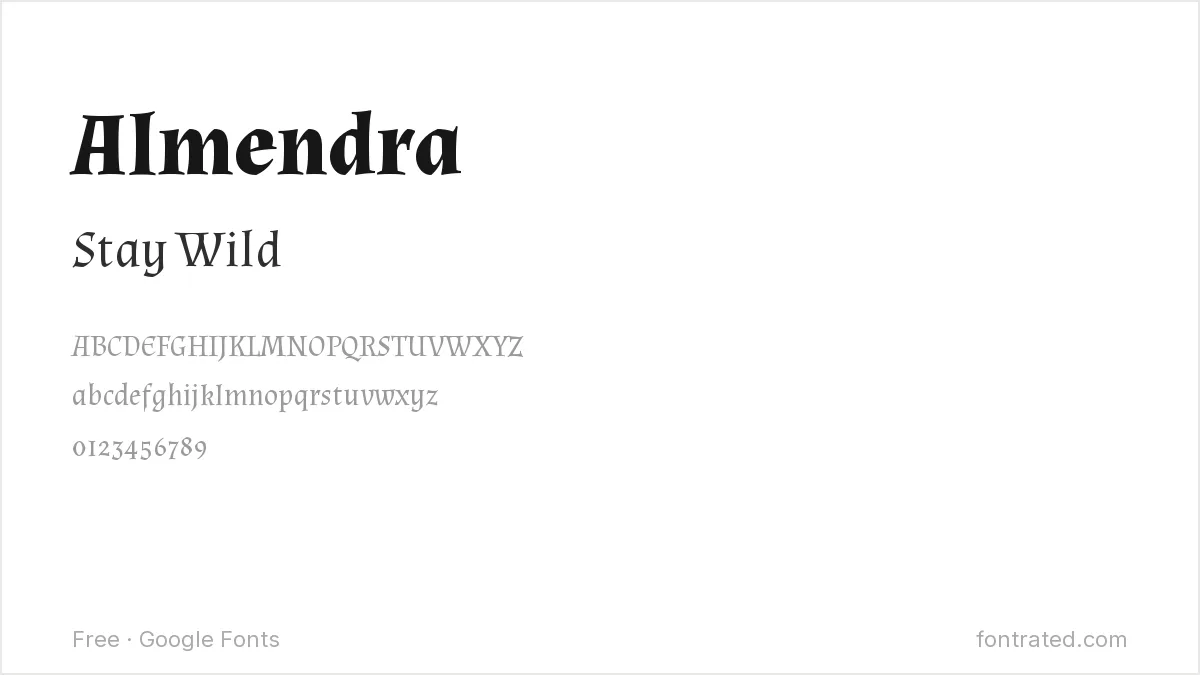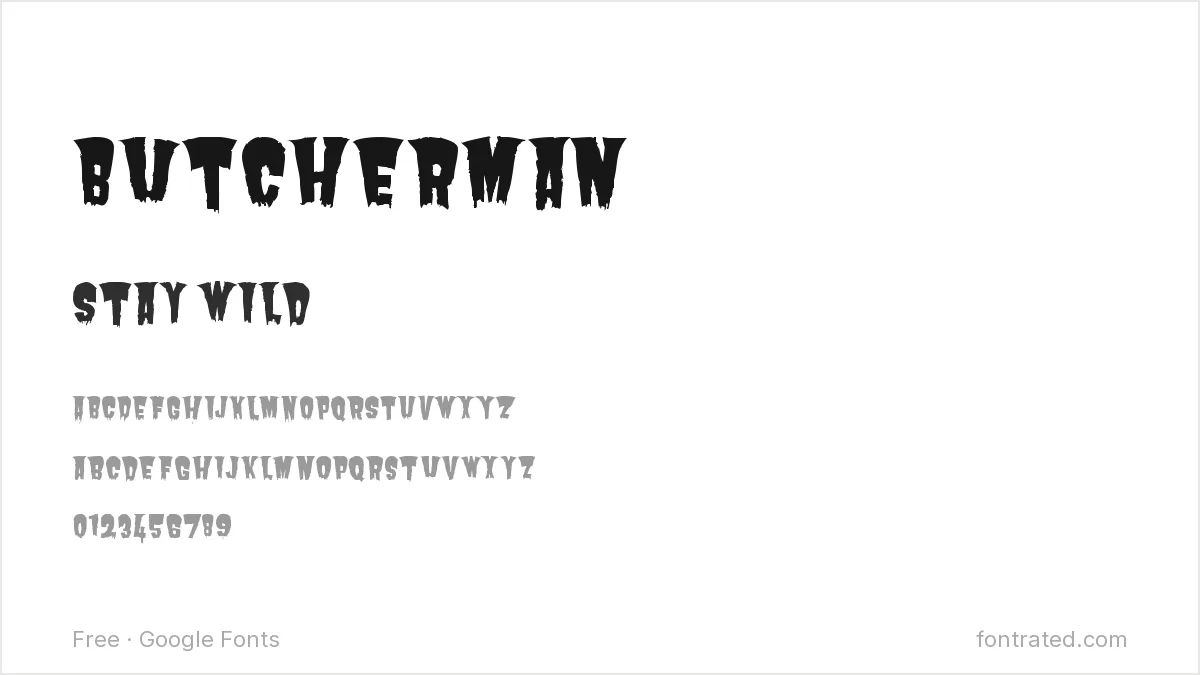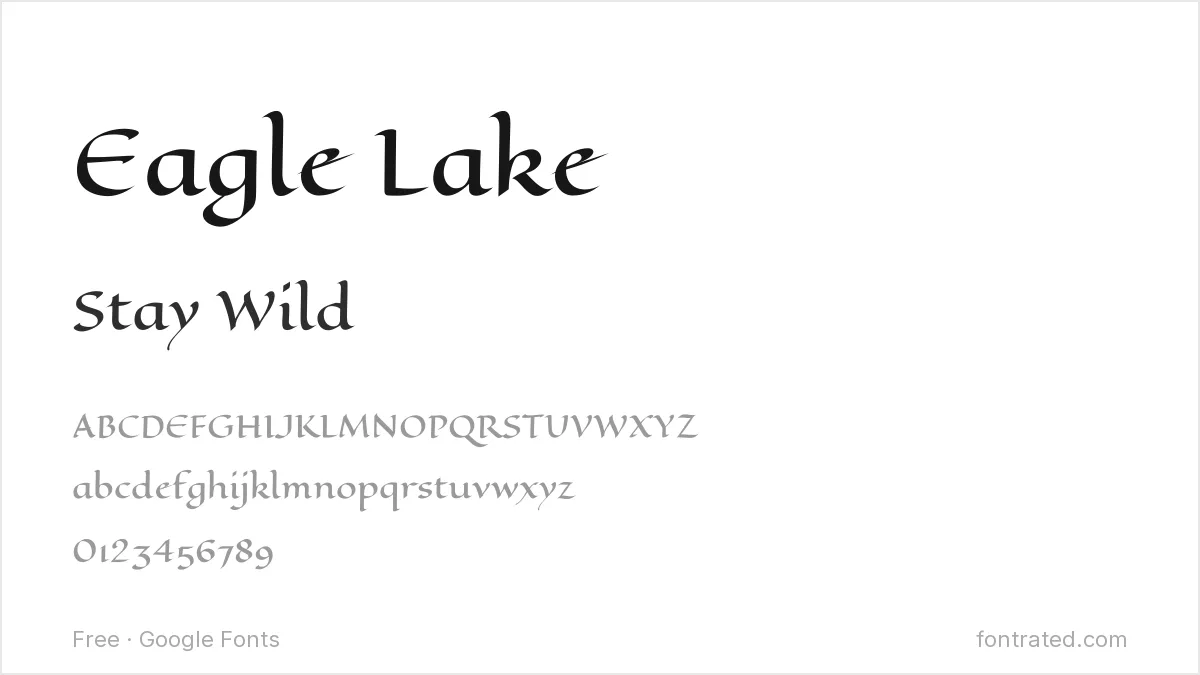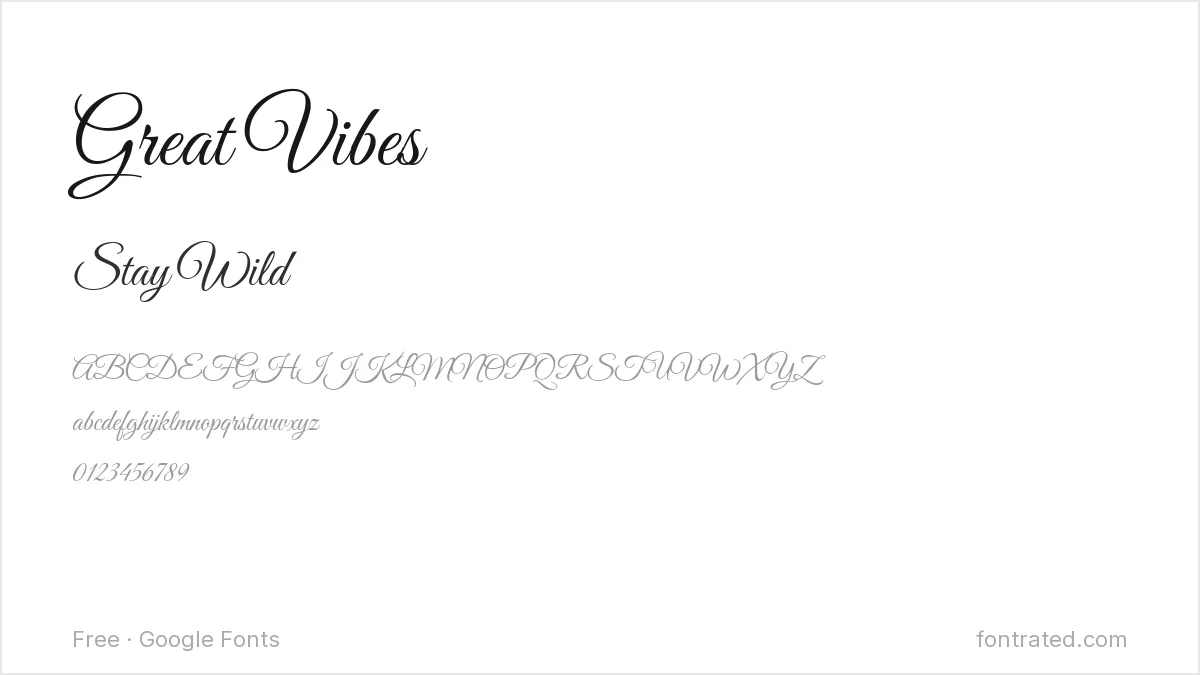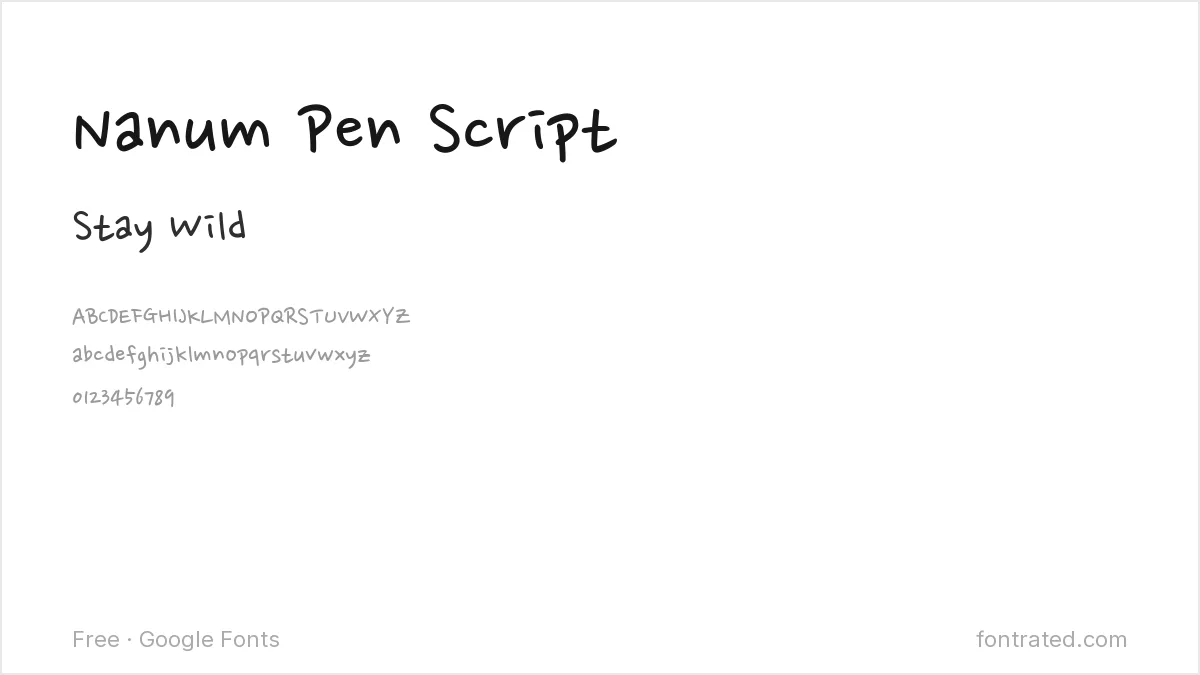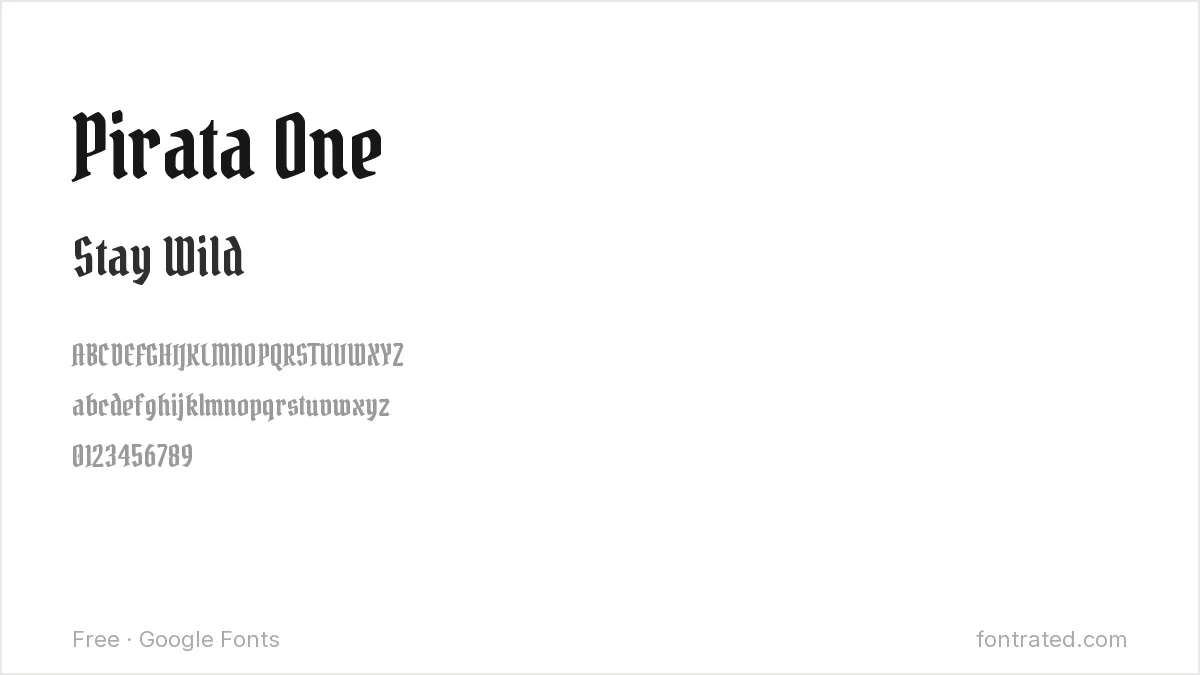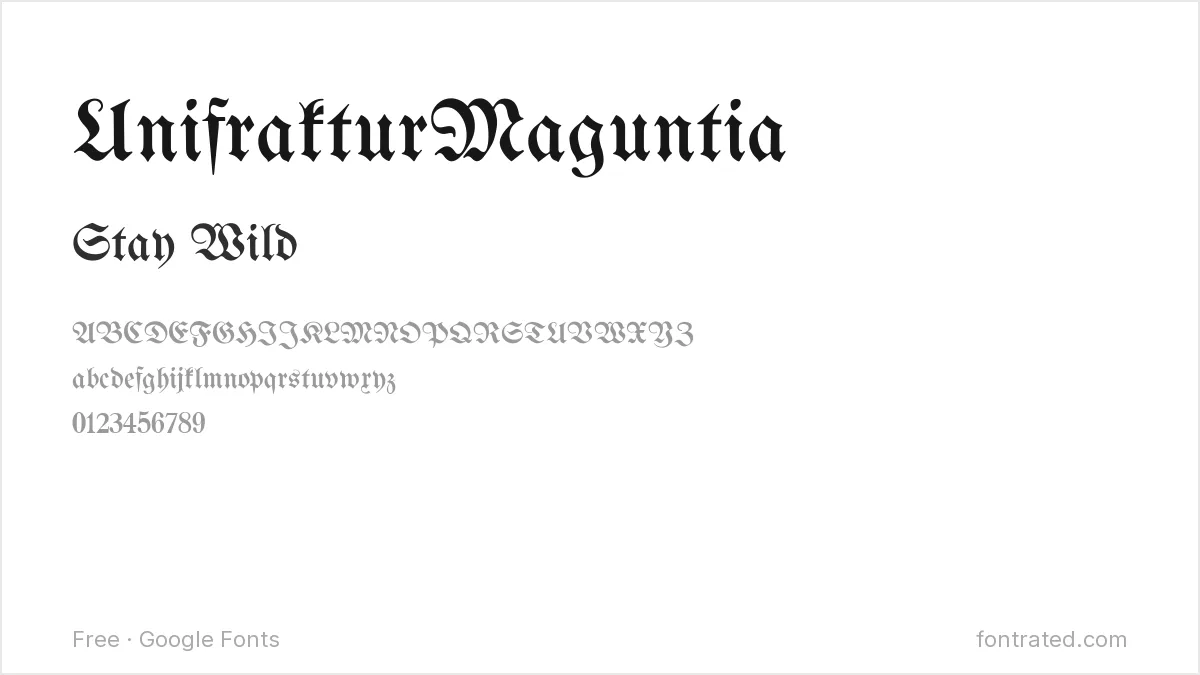
10 Best Free Fonts for Tattoo Lettering
These fonts are meant as a starting reference for a tattoo artist or a mockup to bring to a consultation, not a font file you print directly onto skin — a good tattoo artist will always adapt line weight and spacing for how ink actually holds in skin over time. That said, they’re a genuinely useful starting point for exploring a style before your appointment. If you’ve been searching for free fonts for tattoo lettering, these picks are curated with exactly that in mind.
We picked these across the styles tattoo lettering most often draws from — flowing script, blackletter, and rougher hand-drawn marks — prioritizing ones with clean, well-defined strokes an artist can actually trace and adapt. All ten are Google Fonts under the SIL Open Font License.
Great VibesFlowing monoline scriptFine-line script tattoo references
UnifrakturMaguntiaGerman blackletterTraditional gothic tattoo lettering
Pirata OneBlackletter displayBold gothic tattoo text
Herr Von MuellerhoffElegant calligraphic scriptFine script tattoo references
AlmendraOld-style display serifVintage tattoo flash text
Eagle LakeBlackletter calligraphicOrnate gothic tattoo lettering
Rock SaltRough handwrittenRebellious, hand-drawn tattoo text
Nanum Pen ScriptCasual handwritingMinimalist, personal tattoo text
ButchermanHorror-style displayDark and horror-themed tattoo lettering
Metal ManiaMetal-band-style displayBiker and metal-culture tattoo lettering
Great Vibes
A flowing script with consistent stroke width throughout, Great Vibes is a common starting reference for fine-line script tattoos — its even weight roughly approximates what a fine-line needle can hold over time.
UnifrakturMaguntia
A genuine blackletter face in the German gothic tradition, this is the exact lettering style behind countless traditional gothic tattoos — bold enough to read clearly once adapted for skin.
Pirata One
A heavier, more condensed blackletter than UnifrakturMaguntia, Pirata One reads well at the smaller scale a lot of gothic-lettering tattoos actually end up at.
Herr Von Muellerhoff
An elegant, elaborate calligraphy script with dramatic swashes, Herr Von Muellerhoff works as a reference for a name or single word tattoo where the flourish itself is part of the design.
Almendra
A serif with old-style proportions and a slightly worn, vintage feel, Almendra suits the lettering style common on classic American tattoo flash sheets.
Eagle Lake
A more calligraphic, flowing take on blackletter than the straight gothic style, Eagle Lake works well for an ornate gothic-lettering reference with a bit more movement.
Rock Salt
A deliberately rough, uneven handwritten font, Rock Salt captures the hand-drawn, slightly rebellious feel a lot of text tattoos are actually going for, rather than a too-perfect script.
Nanum Pen Script
A simple, casual handwriting font with an even, controlled line, Nanum Pen Script suits a minimalist text tattoo — a short phrase or word meant to look like actual handwriting rather than a display script.
Butcherman
A dripping, distressed horror-movie-poster style font, Butcherman is a direct reference point for dark or horror-themed tattoo lettering.
Metal Mania
Drawn in the jagged, aggressive style of classic heavy metal band logos, Metal Mania is a common reference for biker or metal-culture tattoo lettering.
Which one should you actually pick? Bring the actual reference image (not just the font name) to your consultation — a tattoo artist will adjust line weight, spacing, and stroke consistency for how the design will actually hold up in skin over years, which is different from how it looks on a screen.
Fine-line and script tattoos often borrow from print typography: free alternatives to Bodoni covers the dramatic thick-thin serif behind a lot of lettering designs, and free alternatives to Gill Sans covers clean humanist capitals.
Can I bring one of these fonts directly to my tattoo artist as a reference?
Yes — that’s exactly what they’re useful for. Download the font, type out your text, and bring the image (or the artist can generate their own) as a starting reference; most artists will still adjust it by hand for how it’ll actually hold in skin.
Why can’t I just print the font directly and have it tattooed exactly as-is?